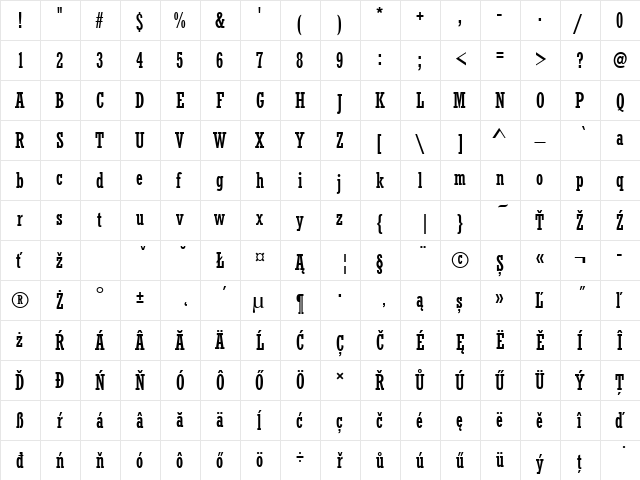
RoctusTEECon Regular
Design Context for RoctusTEECon Typeface
RoctusTEECon offers clean, dependable letterforms without strong stylistic allegiance, making it a practical choice for designers who need flexibility.